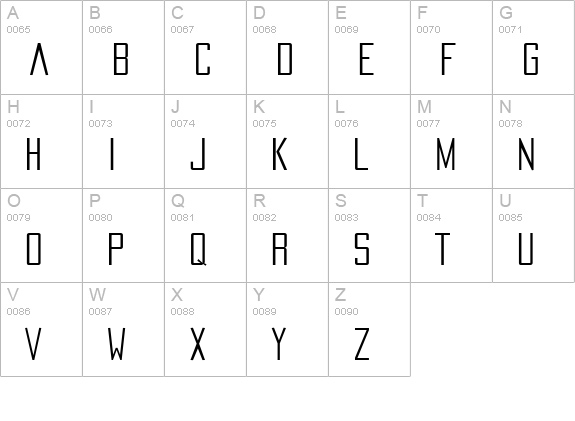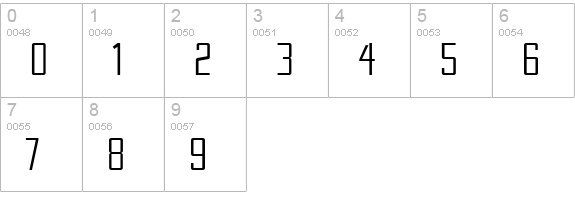
Pacifica Regular Font Details
Pacifica Regular is the standard, neutral variant in the Pacifica typeface family \xE2\x80\x94 well suited to general body text, paragraphs, and standard typographic work.
Pacifica Regular font is a stunning and versatile typeface that exudes elegance and sophistication. Its clean lines and balanced proportions make it perfect for any design project, whether it's a logo, branding, or typography for print or digital media. With its timeless appeal, Pacifica Regular font effortlessly captures attention and creates a lasting impression. Its smooth curves and gentle strokes add a touch of refinement, while still maintaining a modern and contemporary feel. This font is meticulously crafted to ensure legibility and readability, even at smaller sizes. Each character is meticulously designed, ensuring that every letter and punctuation mark harmoniously blends together. One of the best aspects of Pacifica Regular font is that it is freely available to download at FontsMarket.com. This means that you can access this stunning font without any cost, making it an even more appealing choice for designers and creatives. Whether you're a professional designer looking to elevate your projects or an amateur enthusiast exploring typography, Pacifica Regular font is a must-have in your font collection. Its versatility and timeless appeal make it suitable for a wide range of design applications. Don't miss out on the opportunity to enhance your design work with Pacifica Regular font. Download it for free today at FontsMarket.com and experience the beauty and elegance it brings to your projects.